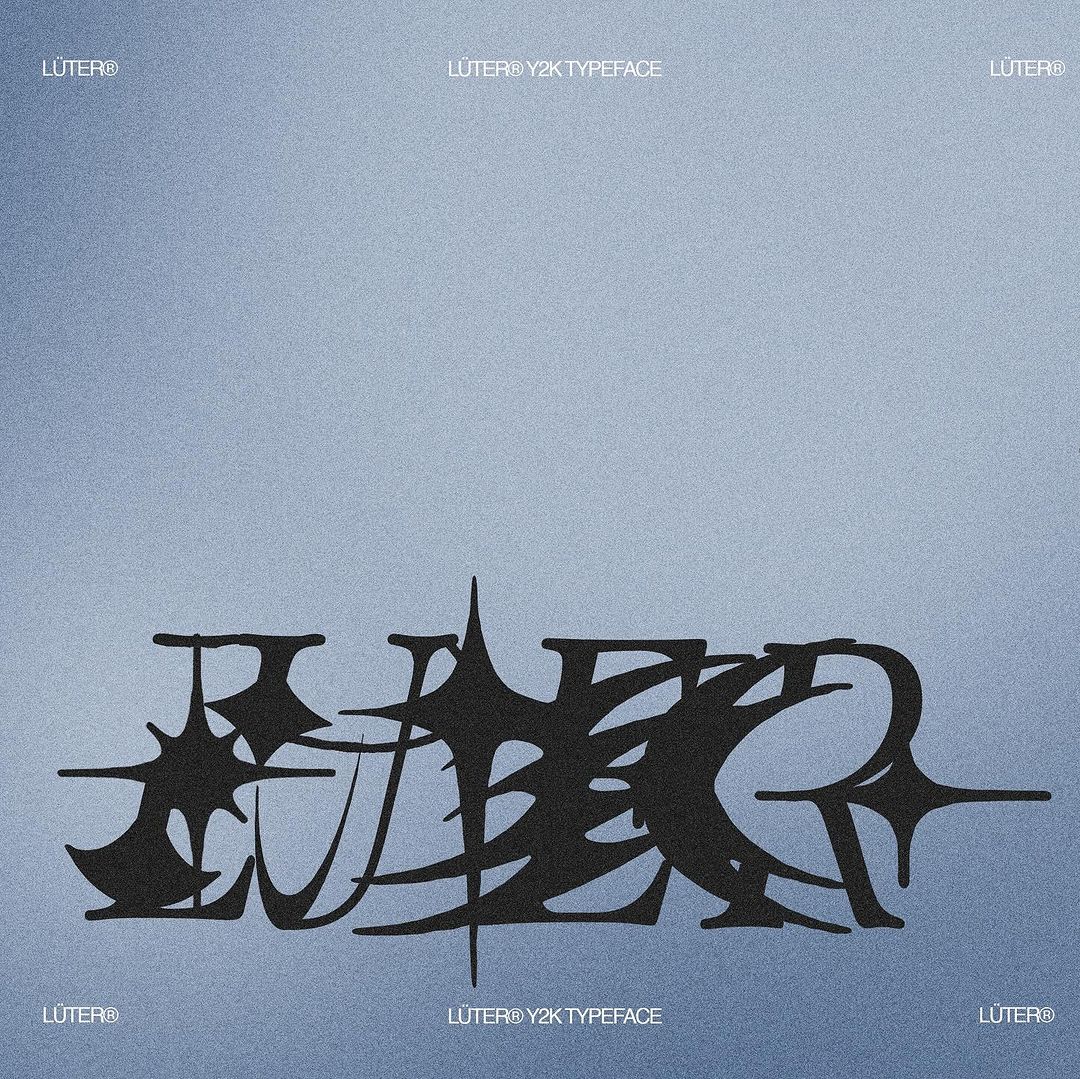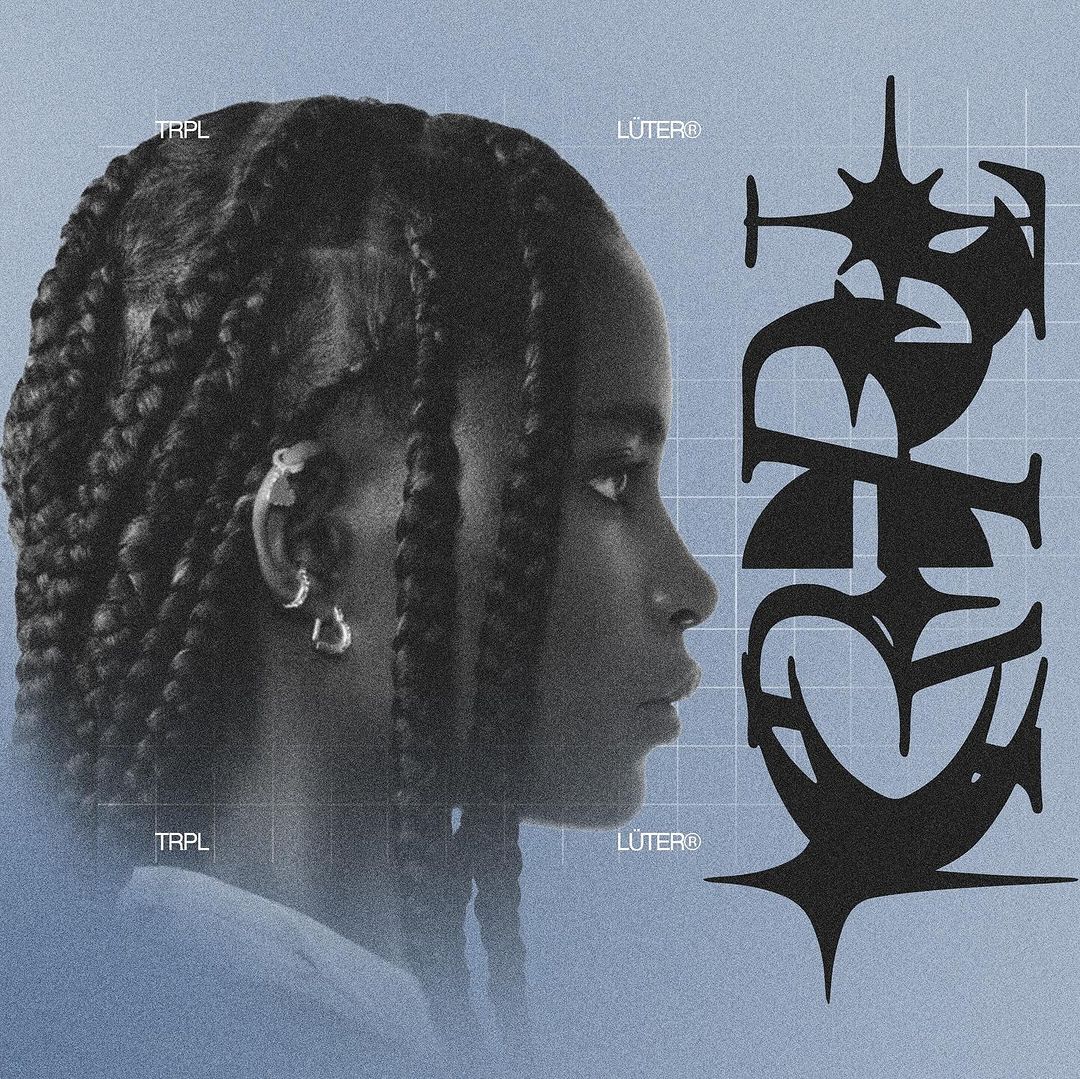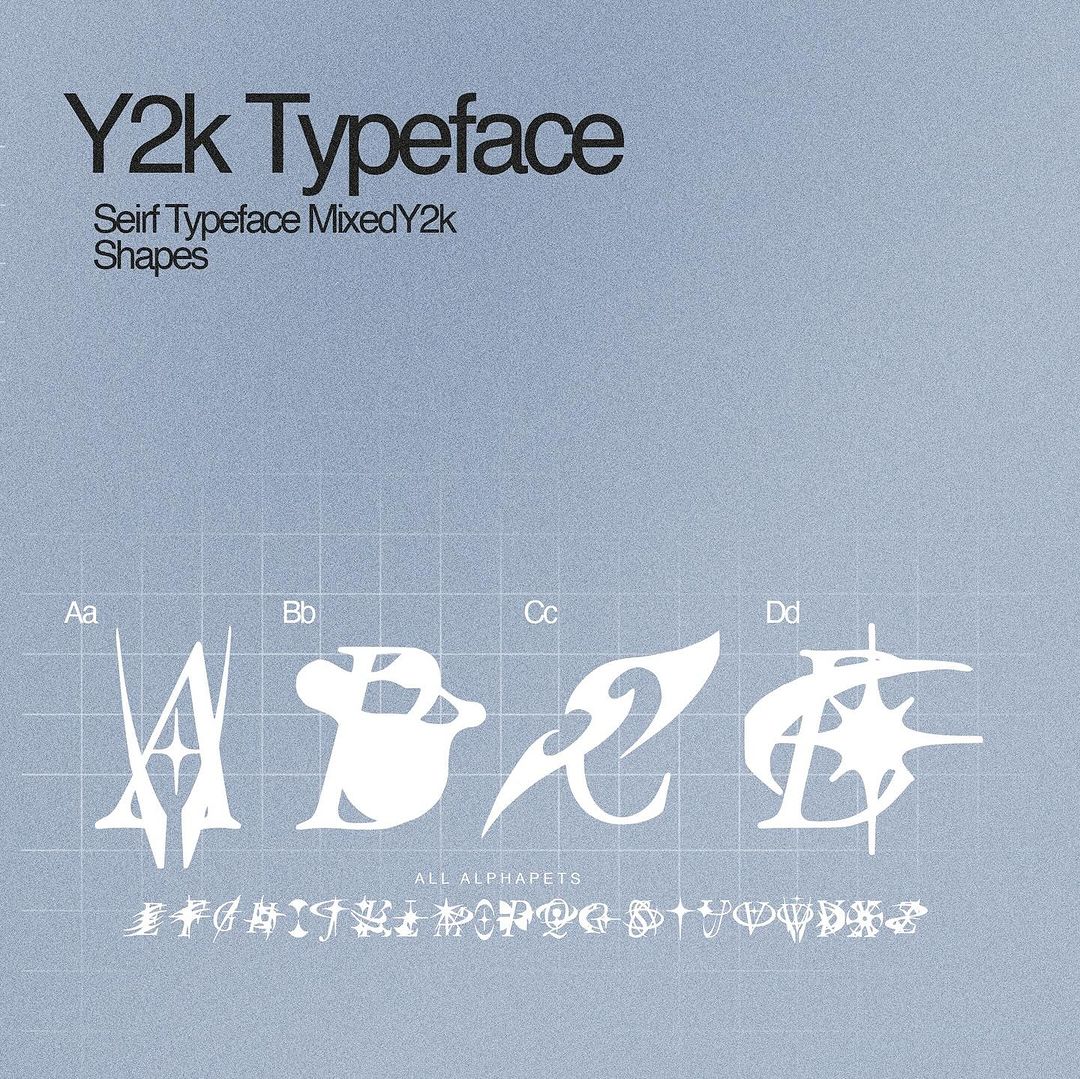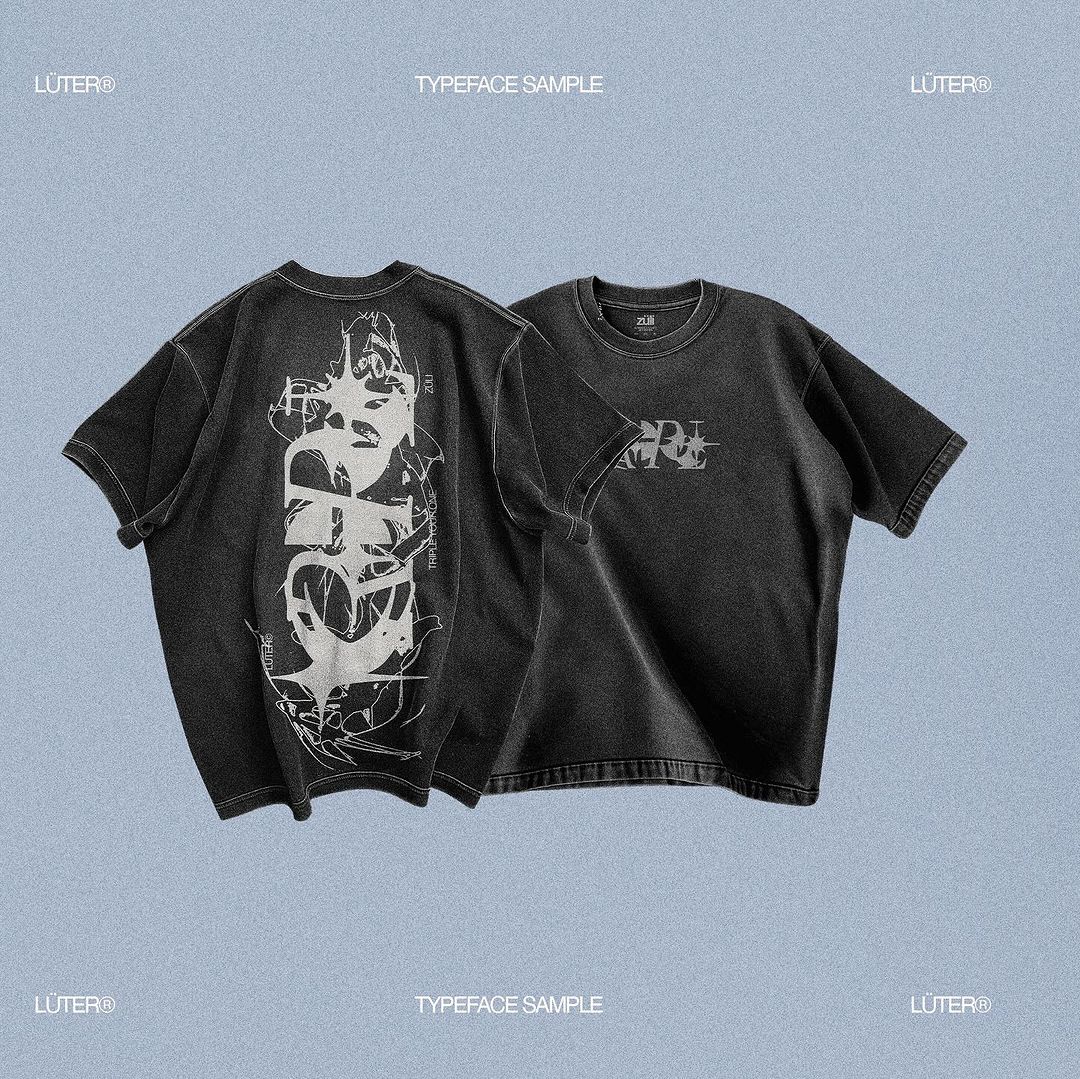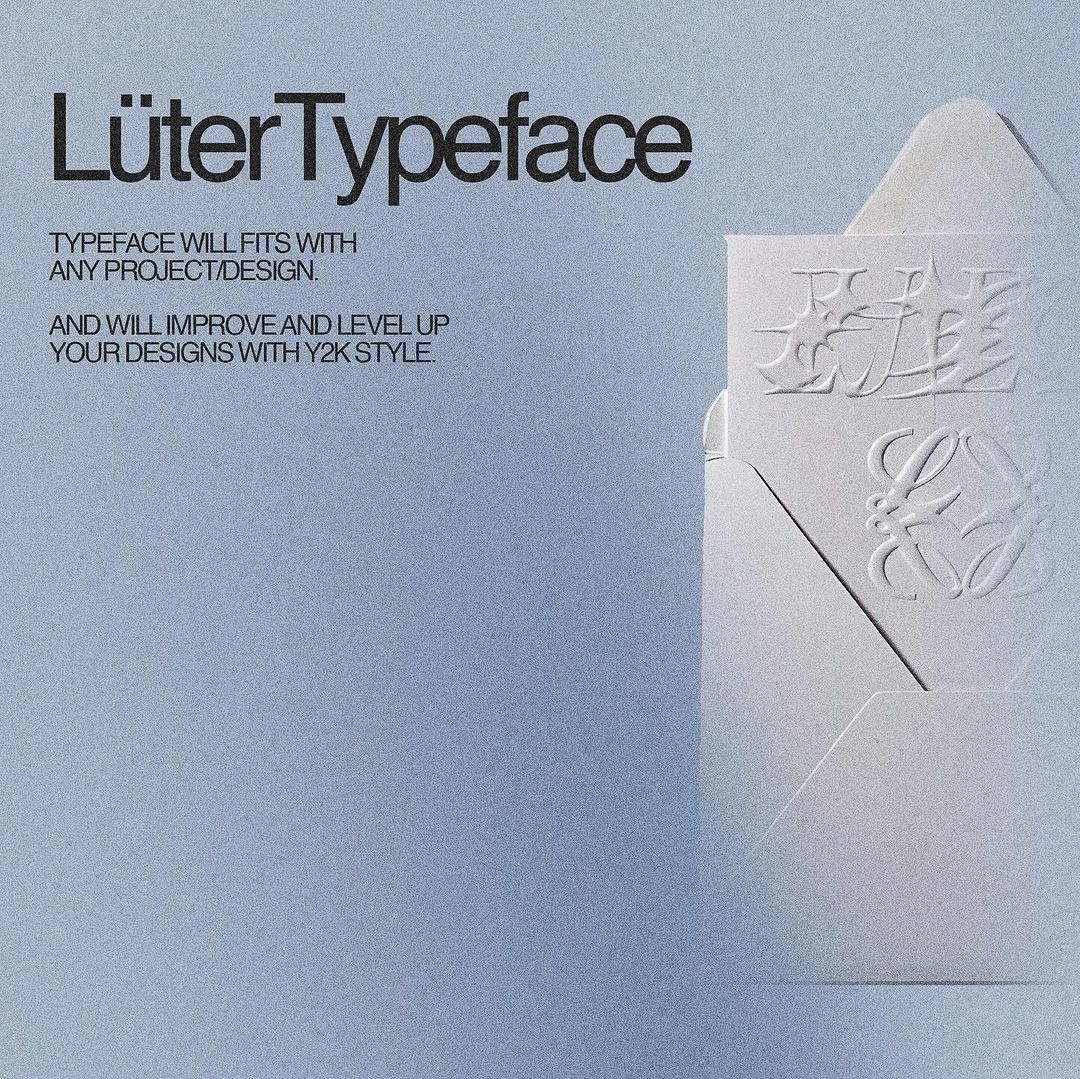
Lüter - Y2k Typeface
Font Features:
• The Typeface is in Y2k Style
• The Typeface is Y2k Letters with Y2k Shapes
• The Typeface will fit with any design and will improve the design level
The Lüter - Y2k Typeface is a font characterized by Y2k style letters and shapes, designed to complement and elevate various designs.